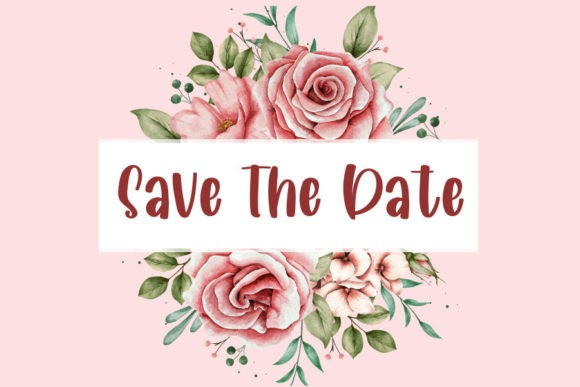
Brokenlove Font
Brokenlove Font is a lovely script font featuring charming, playful characters that seem to dance along the baseline. Add this font to your most creative ideas, and notice how it makes them stand out!